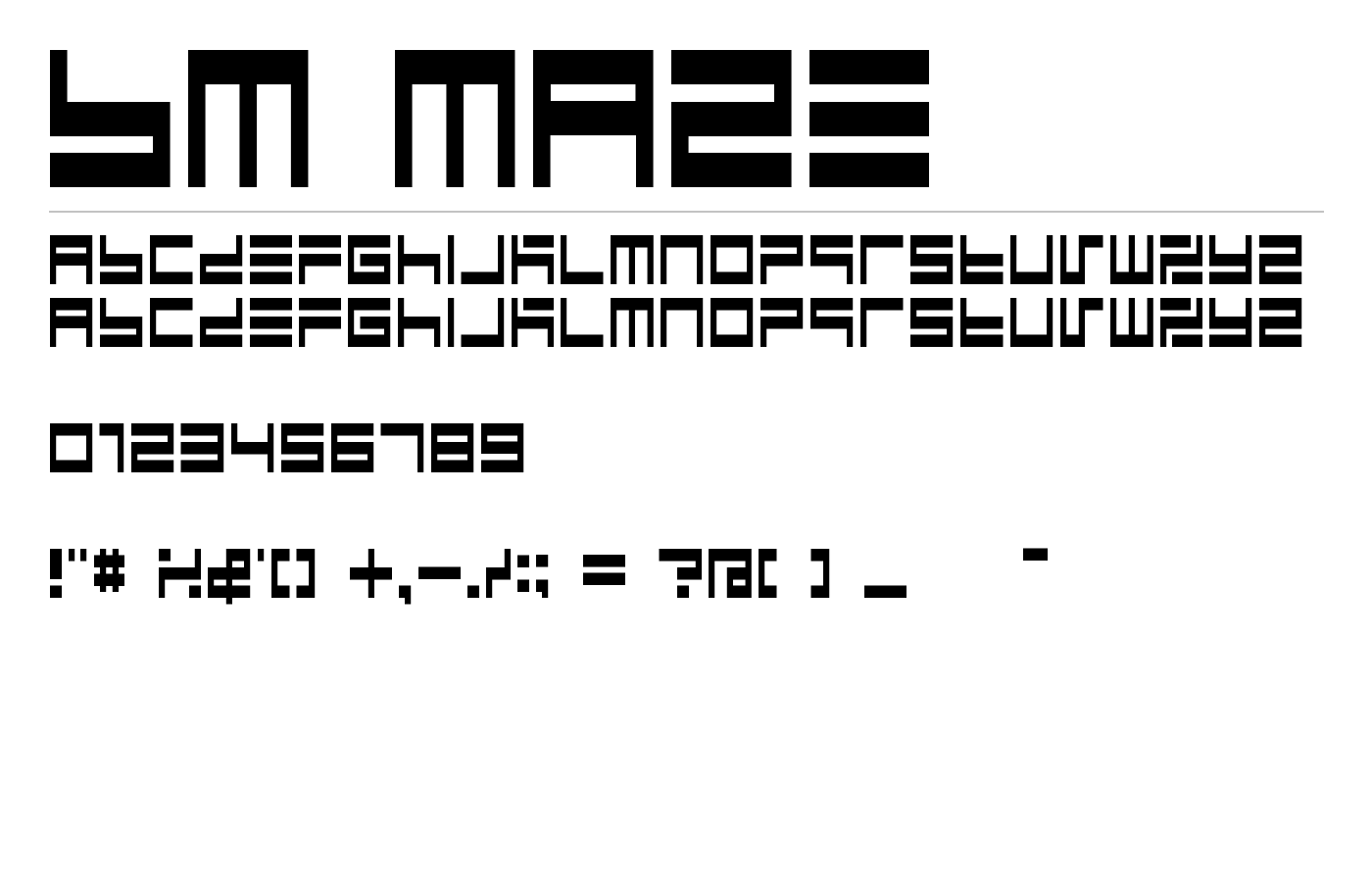
BM Maze is a bold, geometric sans serif font with a highly stylized, blocky design that resembles the paths of a maze. Its consistent stroke weight and squared shapes give it a modern, futuristic feel, making it ideal for eye-catching headlines, logos, and digital-themed projects that want to convey innovation and creativity with a strong visual impact.
BM maze Font
About BM maze Font